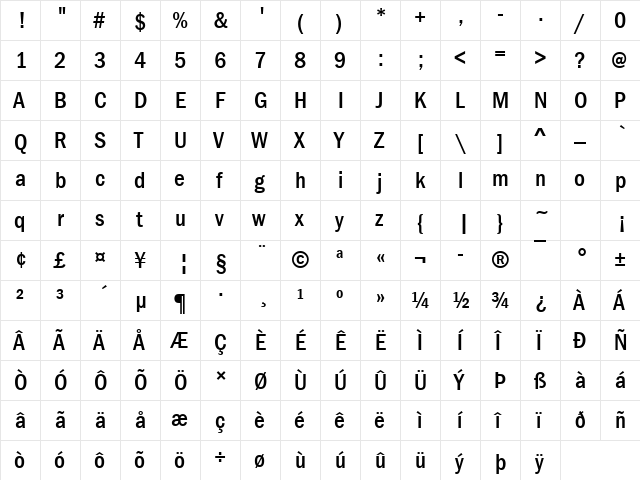
Franklin Gothic Medium Cond Regular
| Foundry | International Typeface Corporation |
| Designer | Victor Caruso -- Font Bureau |
Design Context for Franklin Gothic Medium Cond Typeface
Franklin Gothic Medium Cond takes a clean, functional approach — its unadorned letterforms prioritise legibility and work reliably across screen and print environments. The condensed width makes it efficient for tight spaces without sacrificing legibility.
Font Pairing: Works well alongside a characterful serif or display font that can carry the expressive load while Franklin Gothic Medium Cond handles the functional copy.
Pro Tip: Try Franklin Gothic Medium Cond in all-caps with moderate tracking for navigation and label copy — it performs well in systematic UI contexts.